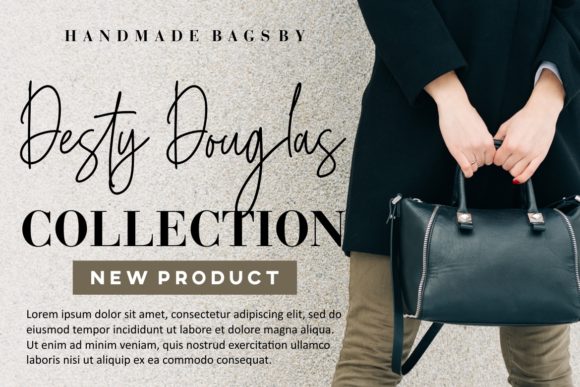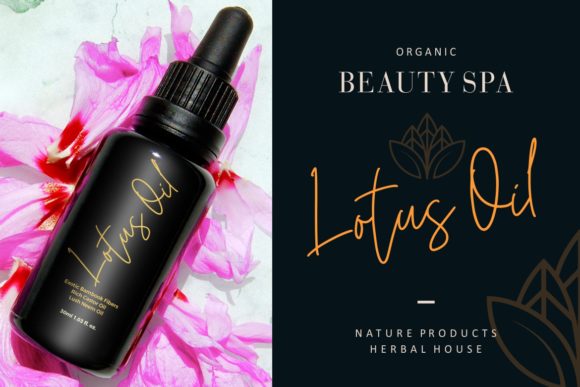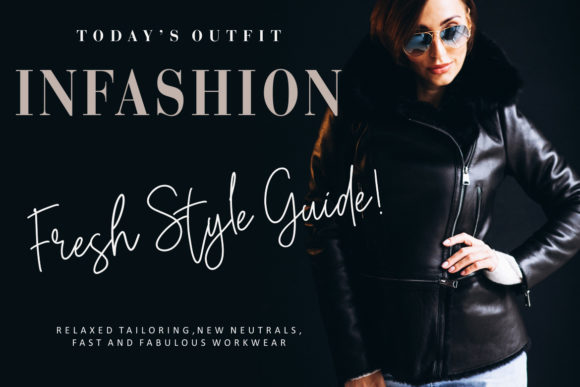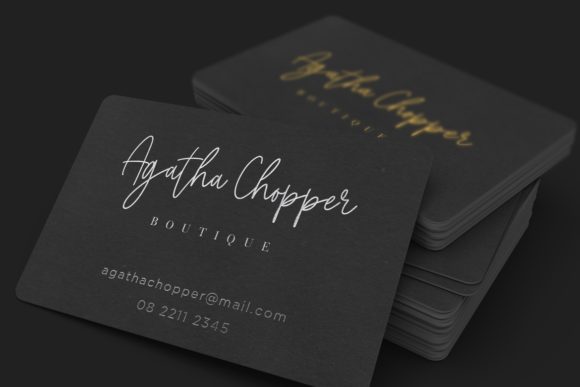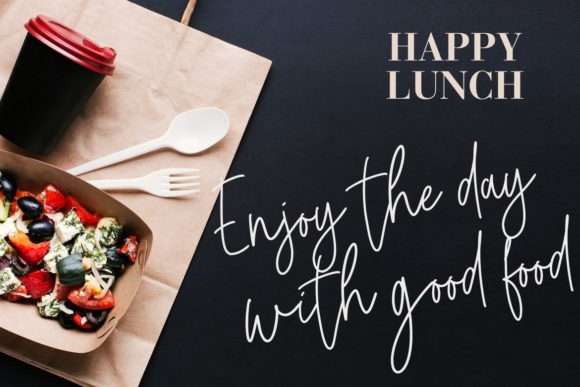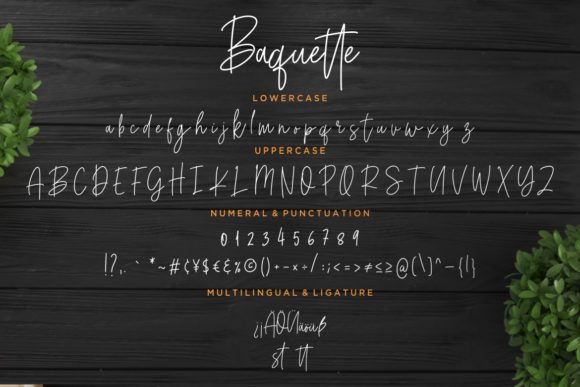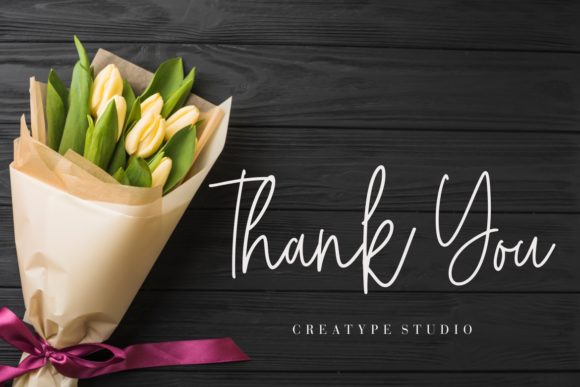
Baquette Font
About Baquette Font
Baquette is an exquisite handwritten font, masterfully designed to become a true favorite. It maintains its classy calligraphic influences while feeling contemporary and fresh. Fall in love with this font and bring your projects to the highest levels!